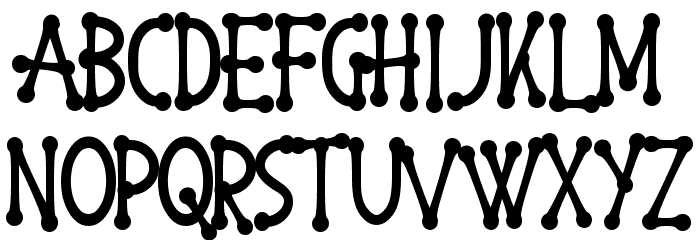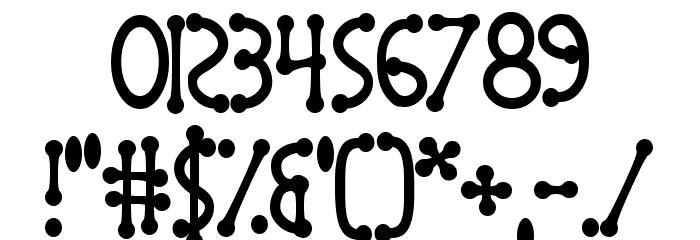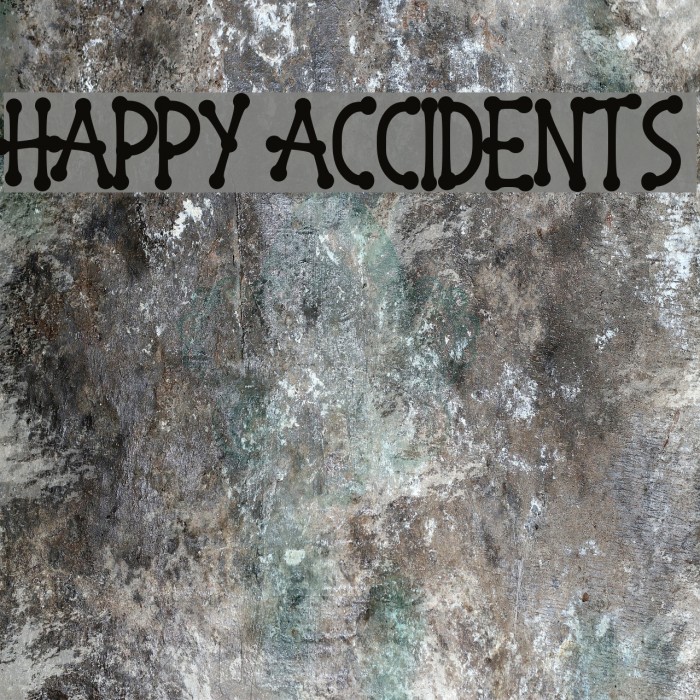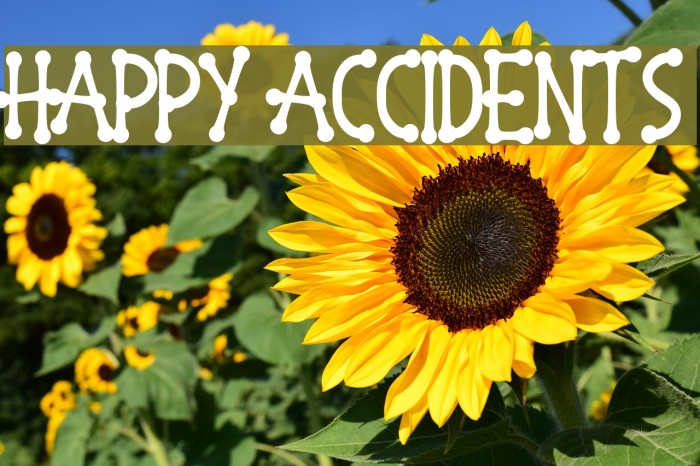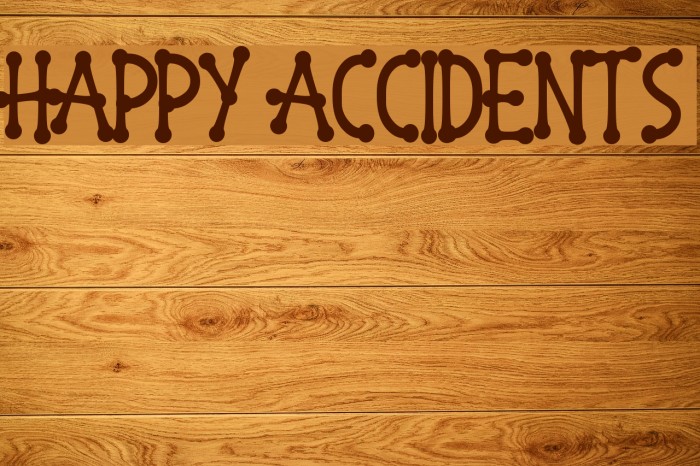
Happy Accidents Font
This font features a playful and whimsical design, characterized by its unique bubble-like serifs and rounded terminals. The letters are bold and slightly irregular, giving it a hand-drawn appearance. The strokes are consistent in thickness, providing a uniform look across all characters. The font includes both uppercase and lowercase letters, numerals, and a variety of special characters, making it versatile for different uses. Its distinctive style is eye-catching and adds a touch of fun to any project.
A playful, bubble-like serif font with a hand-drawn feel.
- Proposed Projects: Ideal for children's books, playful branding, greeting cards, and creative posters.
- Overall Style: Whimsical